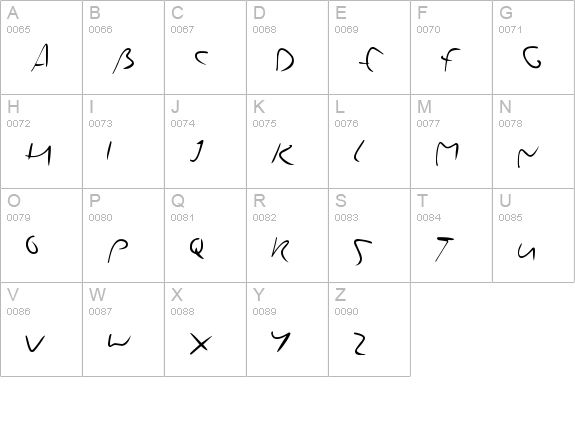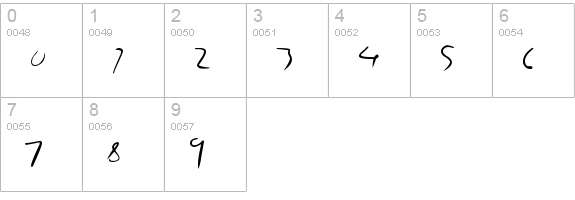
Yours Truly is a free for personal use font in the Script > Handwritten category, designed by Darrell Flood. It has been downloaded 63 times and is available for Windows, Mac and Linux.
Yours Truly font is a charming and elegant typeface that exudes sophistication and creativity. With its delicate curves and graceful lines, this font is perfect for adding a touch of class to any project. Whether you're designing wedding invitations, branding materials, or social media graphics, Yours Truly will elevate your work to a whole new level.